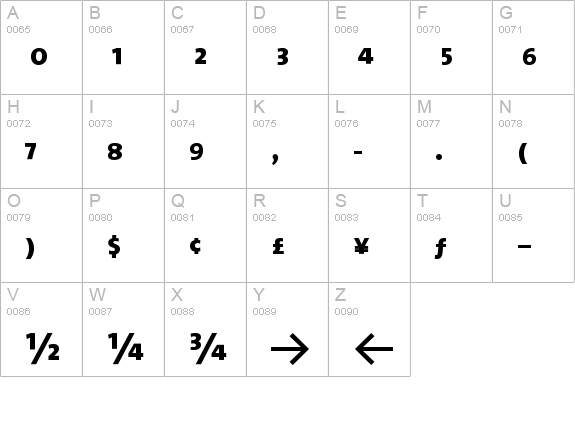
TheMix Bold Expert Font Details
TheMix Bold Expert is a strong, high-contrast variant in the TheMix typeface family \xE2\x80\x94 well suited to headlines, attention-grabbing titles, and strong calls-to-action.
TheMix Bold Expert font is a bold and dynamic typeface that exudes confidence and sophistication. Its strong and assertive letterforms make it ideal for headlines, titles, and branding projects that require a powerful visual impact. With its sleek and modern design, TheMix Bold Expert font effortlessly captures attention and adds a touch of elegance to any design. Its bold weight and expertly crafted letter shapes ensure clear and legible text, even at smaller sizes. This versatile font is perfect for a wide range of projects, from editorial layouts and packaging designs to logos and corporate materials. Its timeless appeal and professional aesthetic make it a go-to choice for designers seeking a font that makes a bold statement. What makes TheMix Bold Expert font even more appealing is that it is available for free download at FontsMarket.com. This means that anyone can access and use this exceptional font without any cost. Whether you are a professional designer or a hobbyist, this font offers you the opportunity to enhance your projects with a high-quality typeface at no expense. So why wait? Enhance your designs with TheMix Bold Expert font today. Download it for free at FontsMarket.com and embrace the power and elegance it brings to your creations.